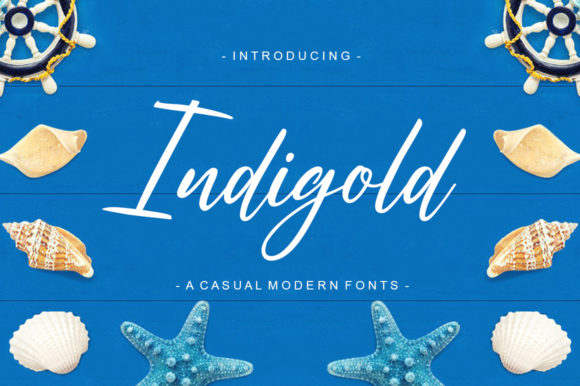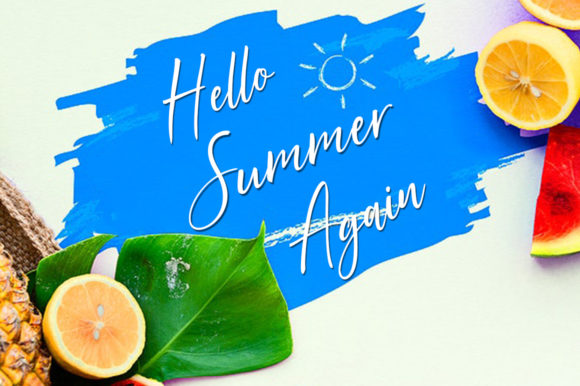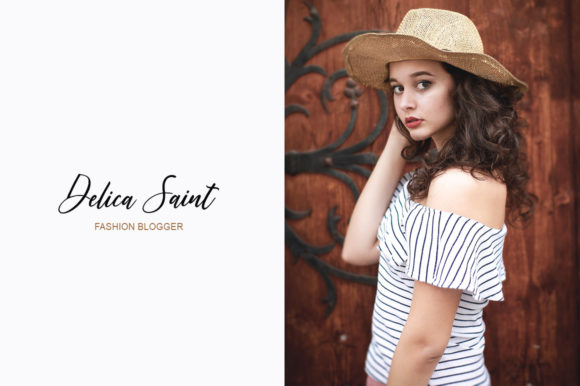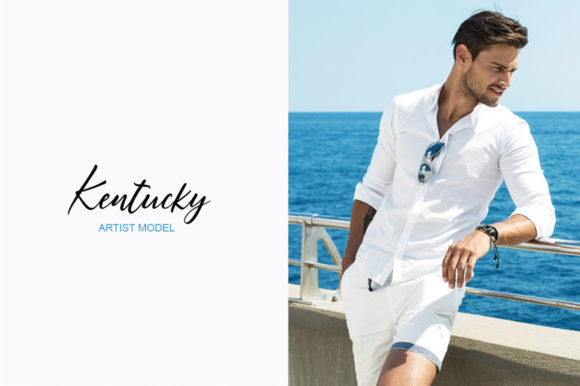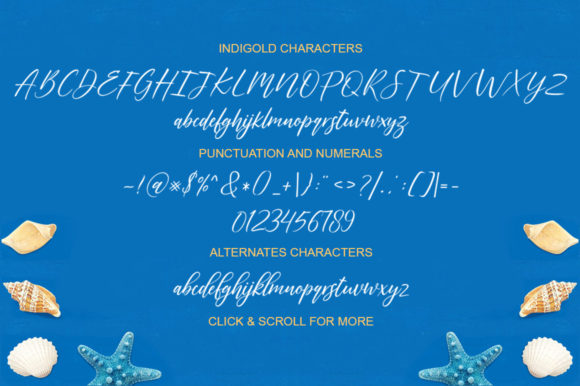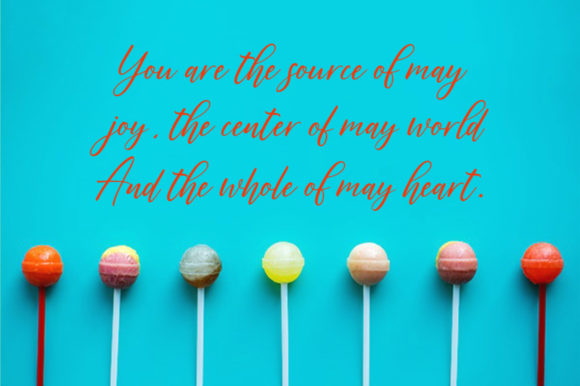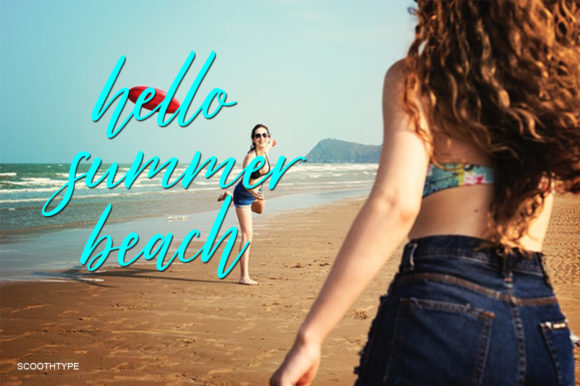
Indigold Font
About Indigold Font
Indigold is a modern handwritten font, designed to convey elegance and style. Its smooth feel makes it perfect for logos, magazines, menus, books, greeting cards, packaging, bags, crafts, labels, t-shirts, and much more! This font is PUA encoded which means you can access all of the amazing glyphs and swashes with ease! It also features a wealth of special features including alternate glyphs and ligatures.